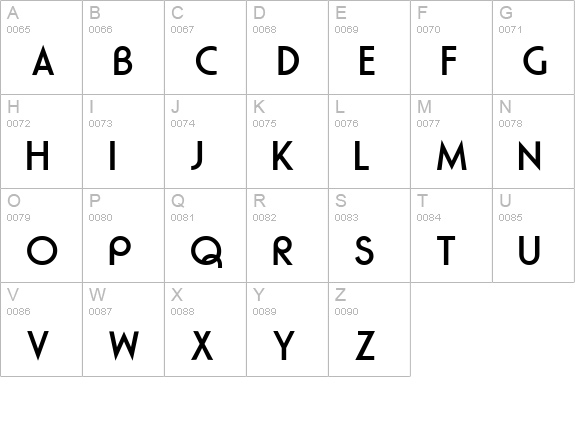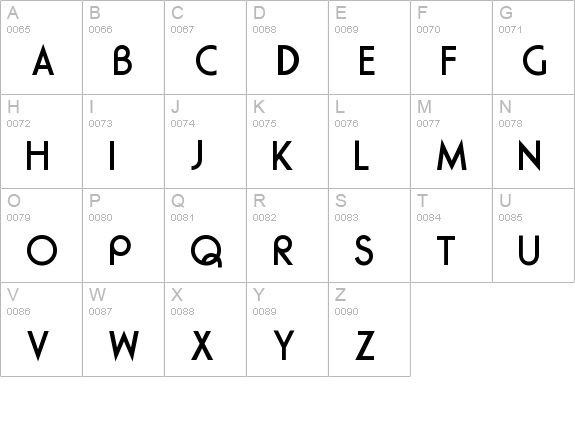
Ronda Regular is the standard, neutral variant in the Ronda typeface family \xE2\x80\x94 well suited to general body text, paragraphs, and standard typographic work.
Ronda Regular font is a versatile and elegant typeface that exudes sophistication and style. Its clean lines and classic design make it suitable for a wide range of projects, from branding to editorial design. The balanced proportions of Ronda Regular font give it a timeless appeal that will stand the test of time. What's even better is that Ronda Regular font is available for free download at FontsMarket.com. This means you can easily access this high-quality font without any cost, making it a valuable addition to your font collection. Don't miss out on the opportunity to enhance your design projects with the beauty and versatility of Ronda Regular font, now just a click away at FontsMarket.com.